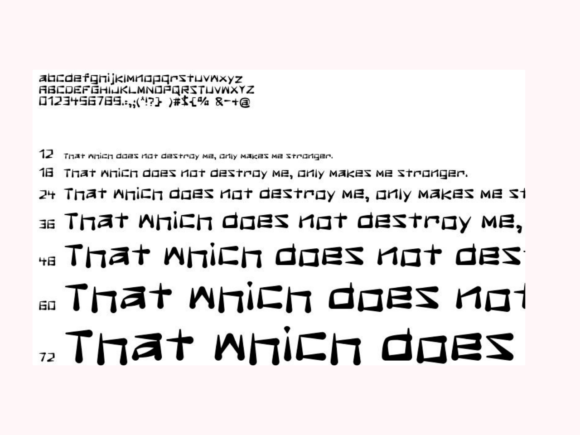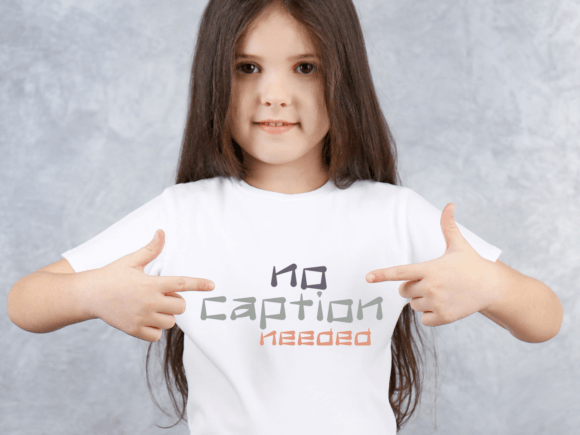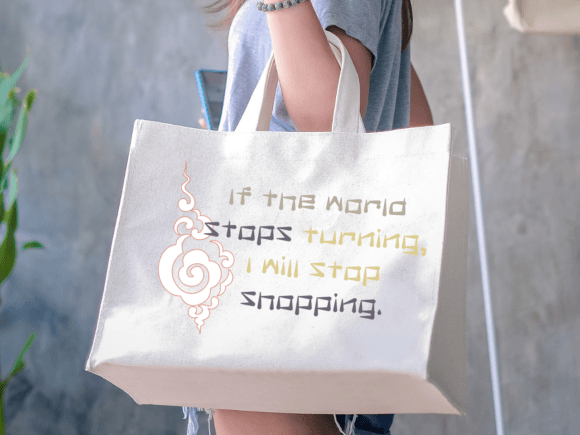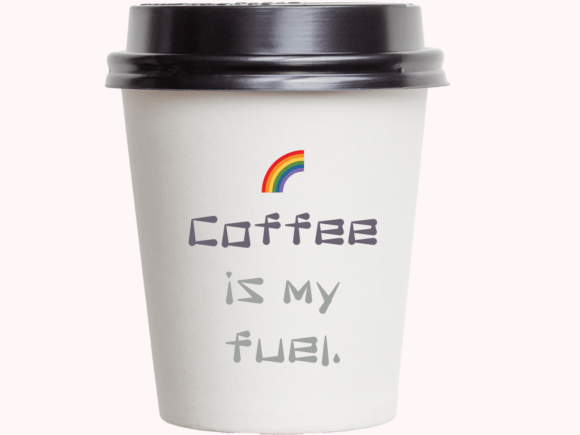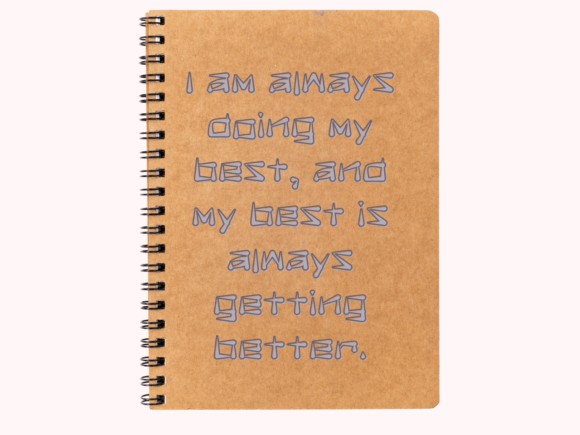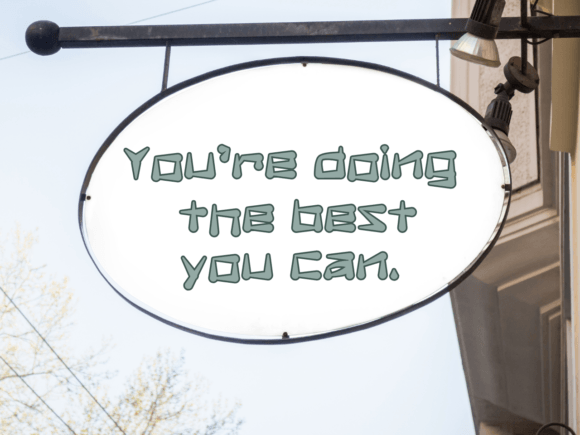
Introducing the Baseball Racket Font: Elevate Your Designs with a Unique Touch
In the world of design, fonts play a crucial role in conveying messages and setting the tone for various projects. For crafters, designers, and DIY enthusiasts, finding the perfect font can be a game-changer. If you’re looking to add a distinct touch to your creations, look no further than the Baseball Racket Font. This specially designed font is not just a stylish addition but a statement maker that can transform your work into something truly memorable.
The Distinct Identity of Baseball Racket Font
What sets the Baseball Racket Font apart is its unique, handcrafted design that mimics the aesthetic of baseball equipment. Each letter and symbol is carefully crafted to bring the spirit of the baseball field into your designs. Whether you’re working on greeting cards, wedding invitations, quotes, Goodnotes, planners, handwritten notes, or even logos, this font adds an undeniable charm that traditional fonts simply can’t match.
One of the key advantages of the Baseball Racket Font is its versatility. It’s not limited to a specific type of project or audience. Here are some ways you can use this font to elevate your work:
- Greeting Cards: Stand out from the crowd with custom birthday, Christmas, or thank-you cards that have a personal touch.
- Wedding Cards and Invitations: Give your wedding stationery a unique look that reflects your personalities.
- Quotes and Inspirational Messages: Add a sporty, motivational vibe to your quotes and posters.
- Goodnotes and Planners: Personalize your digital planners and Goodnotes with a font that makes them truly one-of-a-kind.
- Handwritten Notes: Make your handwritten notes look professionally designed with a touch of personality.
- Logos: For businesses related to sports, education, or any field that wants to convey a sense of fun and uniqueness, this font can be a great choice.
- Teachers and Educators: Create educational materials, classroom decorations, or newsletters that are engaging and distinctive.
Adding Novelty to Your Work
The novelty of the Baseball Racket Font lies in its ability to merge playfulness with elegance. It’s not just about making your work look different; it’s about making it memorable. In a sea of standard fonts, your designs will stand out, capturing the attention of your audience. Whether you’re a professional designer looking to offer something new to your clients or a crafter aiming to make your DIY projects more appealing, this font can be your go-to choice.
Why Choose Baseball Racket Font?
Choosing the Baseball Racket Font means opting for uniqueness, quality, and the ability to connect with your audience on a different level. Here are a few reasons why it should be your top pick:
- Unique Designs: Each letter and symbol is designed to give your work a distinct look.
- High-Quality: The font is crafted with attention to detail, ensuring it looks great in any project.
- Easy to Use: Despite its unique design, the font is easy to integrate into various projects and software.
- Versatile: It can be used for both personal and commercial projects, offering great flexibility.
The Baseball Racket Font is more than just a typeface; it’s a design statement. It offers a fresh, unique perspective that can transform your projects, making them stand out in a crowded digital landscape. Whether you’re a designer, educator, or crafter, this font provides an exciting opportunity to infuse your work with personality and charm. So, why settle for ordinary when you can make your designs extraordinary with the Baseball Racket Font?
Embrace the uniqueness and let your creativity shine with a font that truly hits it out of the park!